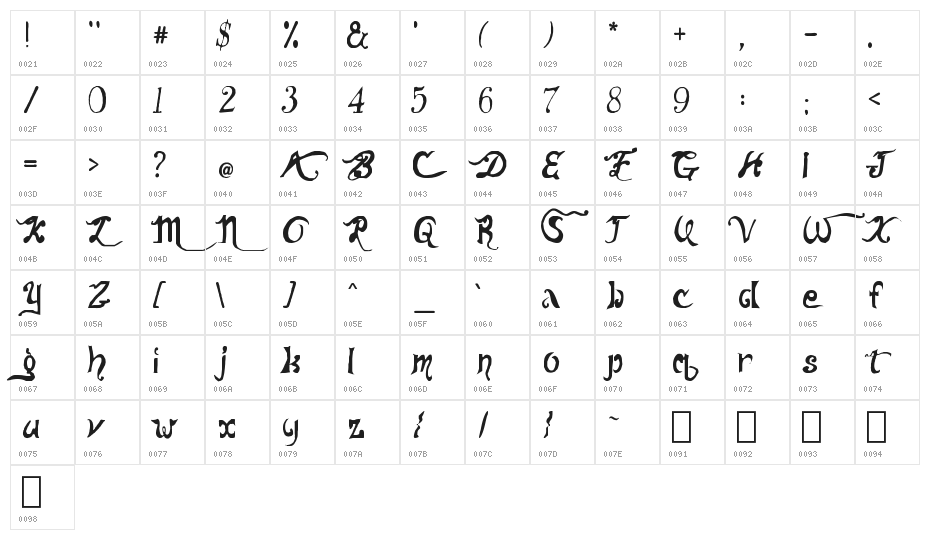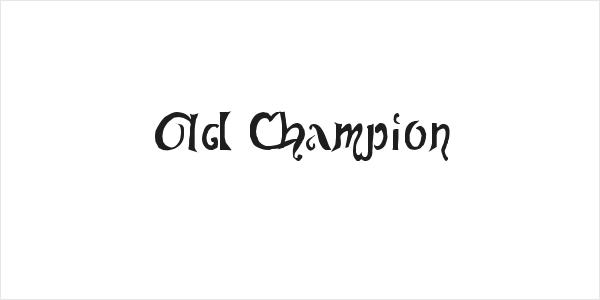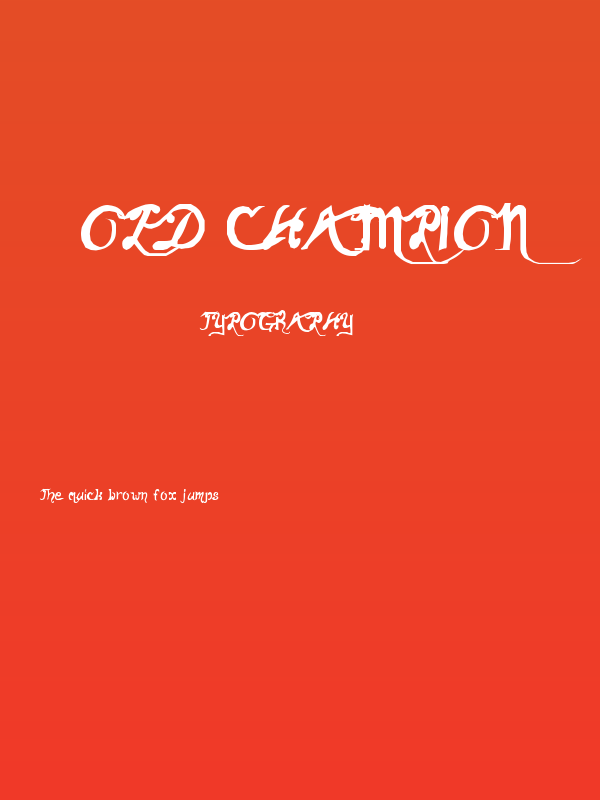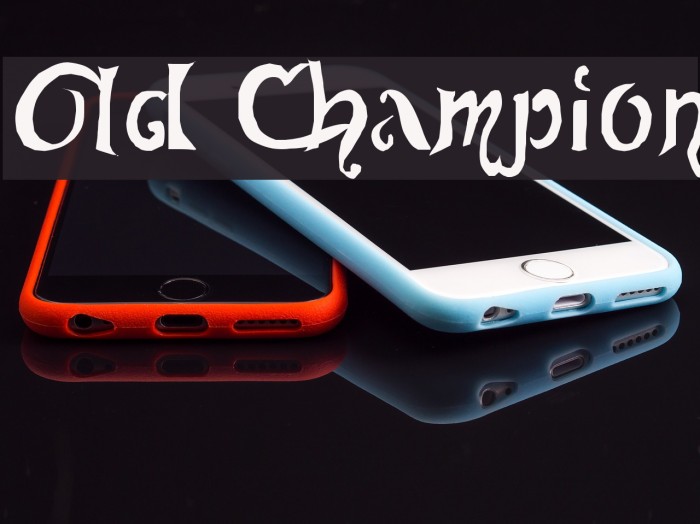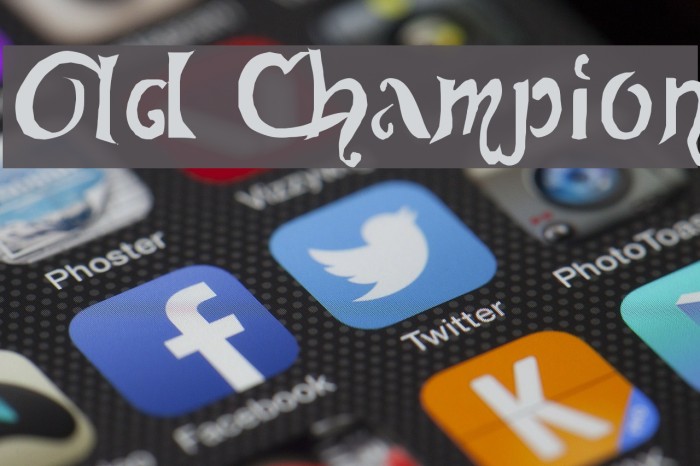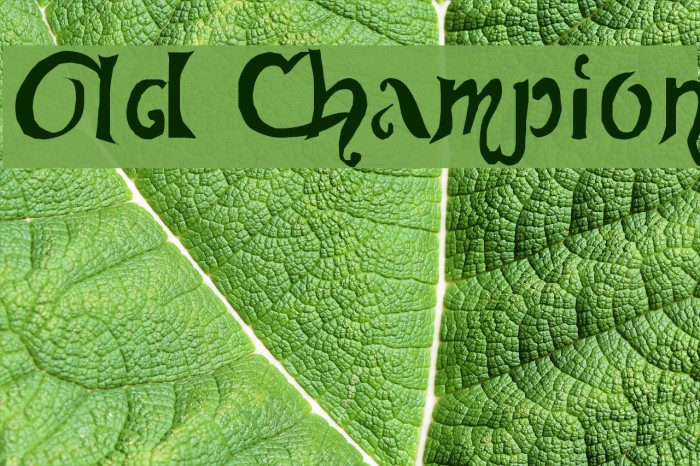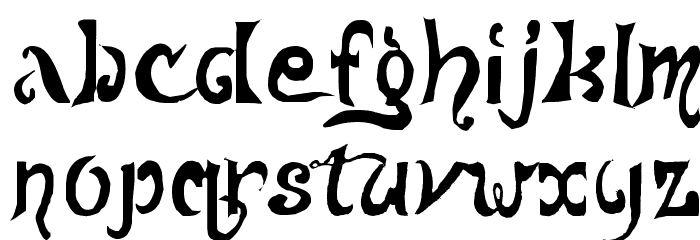
Old Champion Font
Old Champion Description
This font exhibits a classic and ornate style reminiscent of traditional calligraphy. The characters are intricately designed with elaborate flourishes and dramatic strokes, giving it a historical and elegant appearance. The uppercase letters are particularly bold and decorative, while the lowercase letters maintain a consistent style with slightly less embellishment. The numerals and special characters follow the same ornate theme, ensuring a cohesive look across all elements. This font's unique style makes it stand out, ideal for projects that require a touch of sophistication and historical charm.
| Overall Style | Vintage |
| Use Case | Logos, Headlines, Decorative purposes |
| Proposed Projects | Ideal for wedding invitations, historical documents, certificates, and branding that requires a classic touch. |